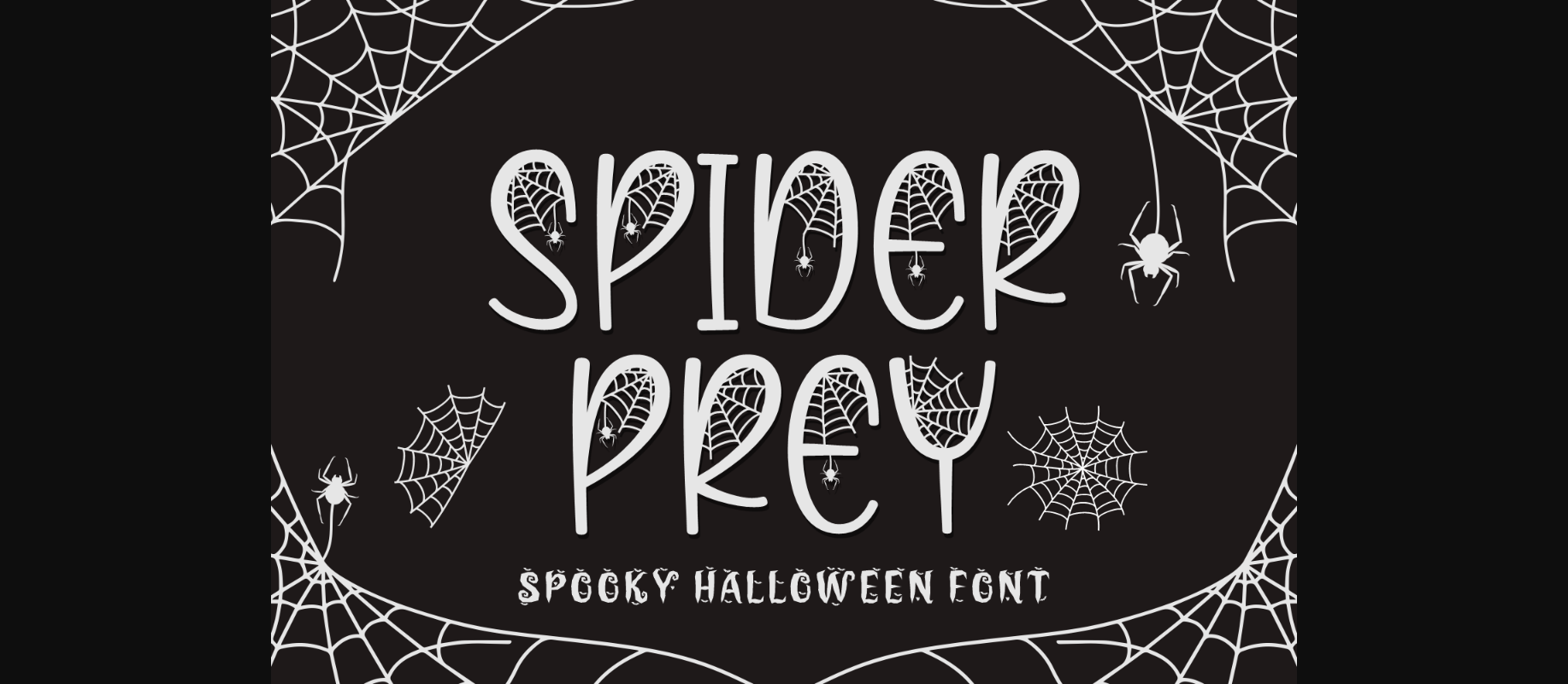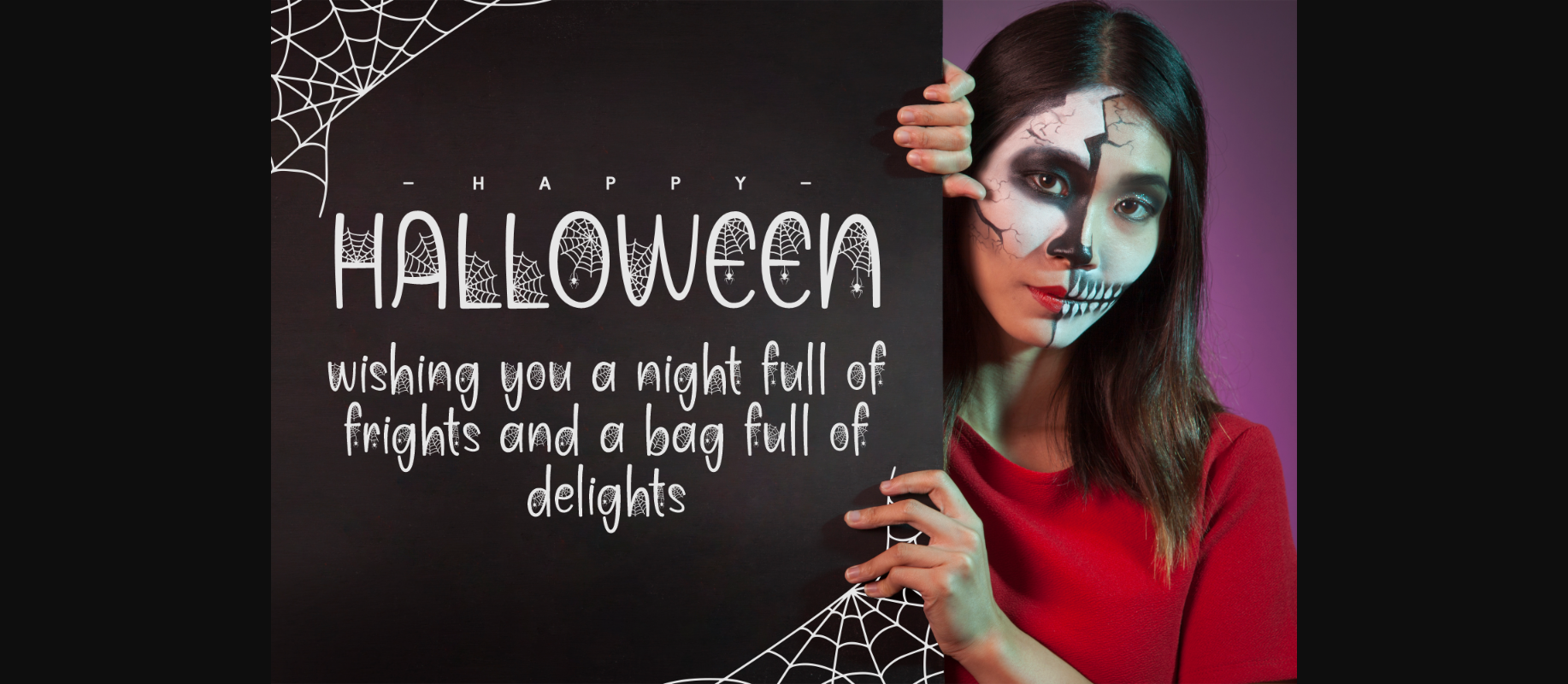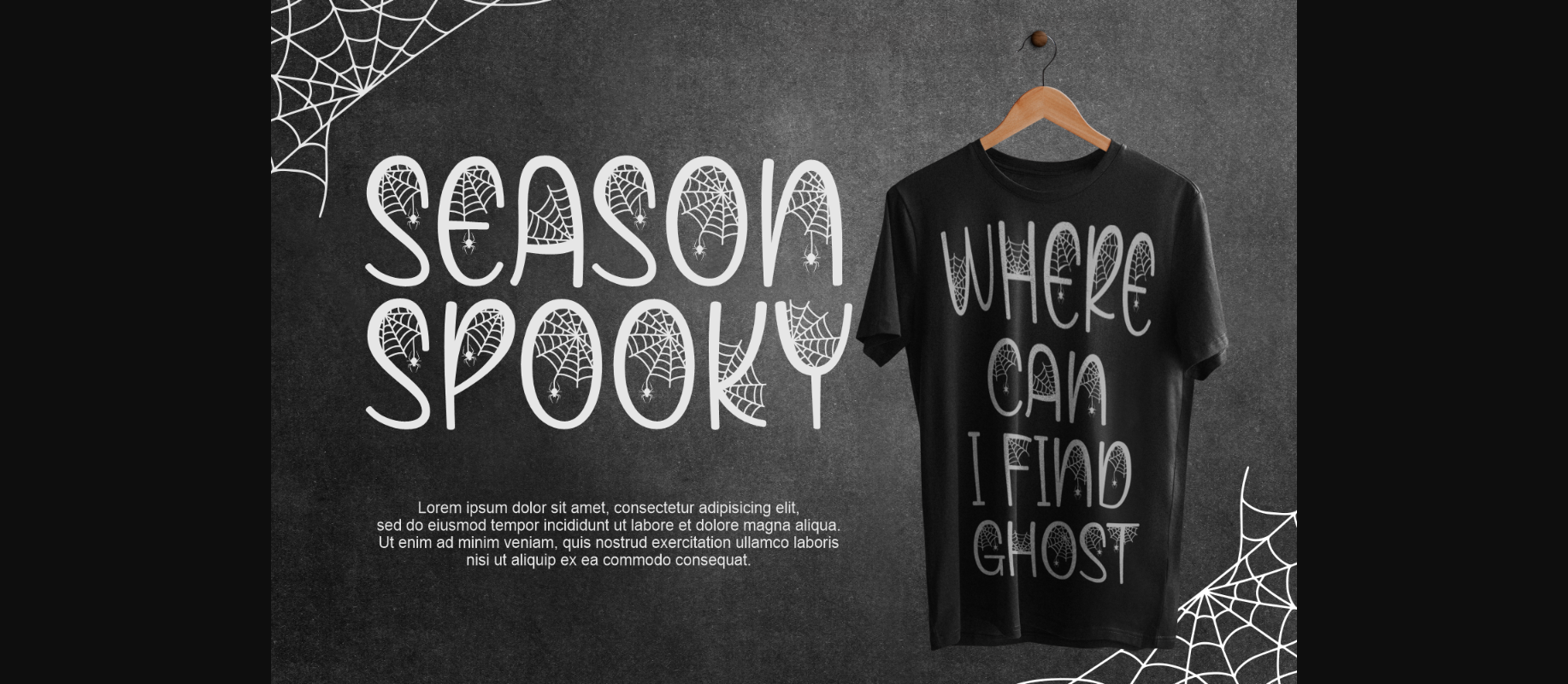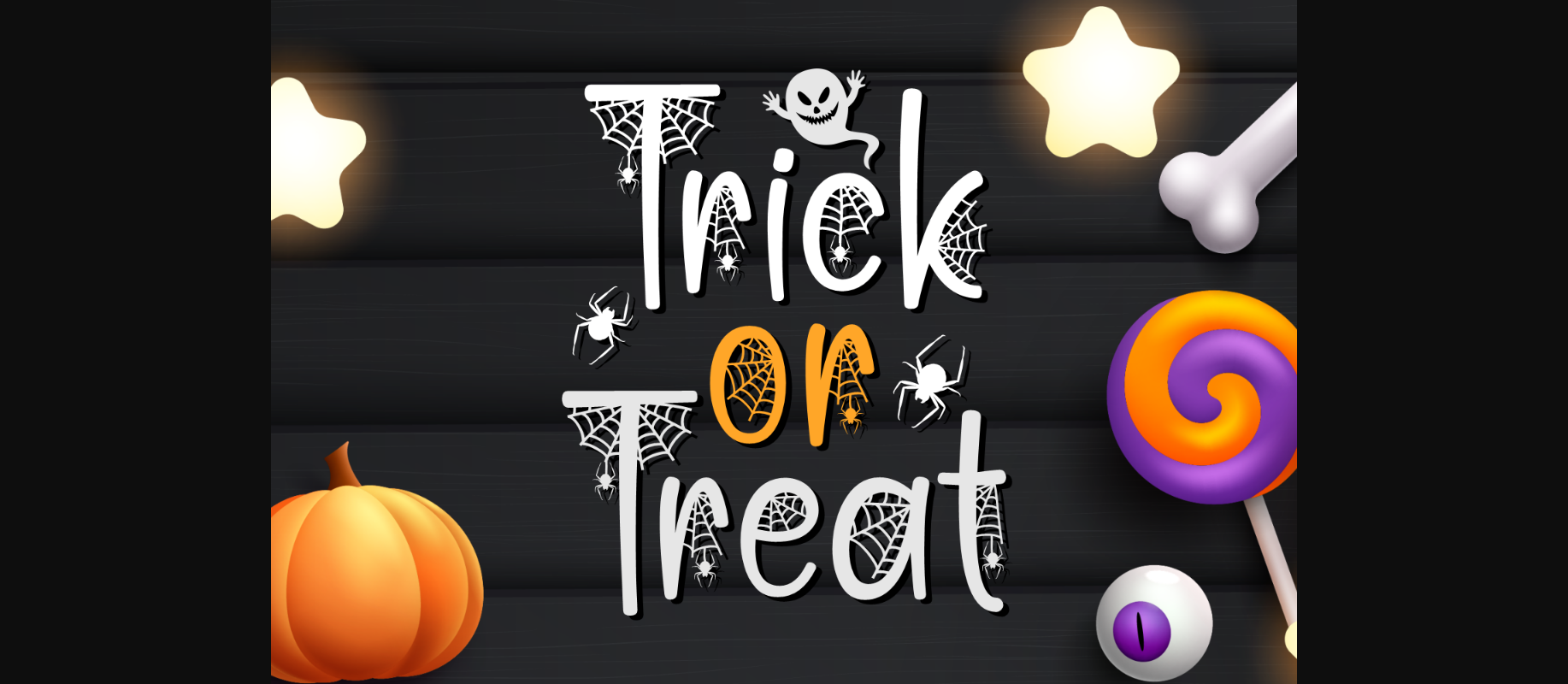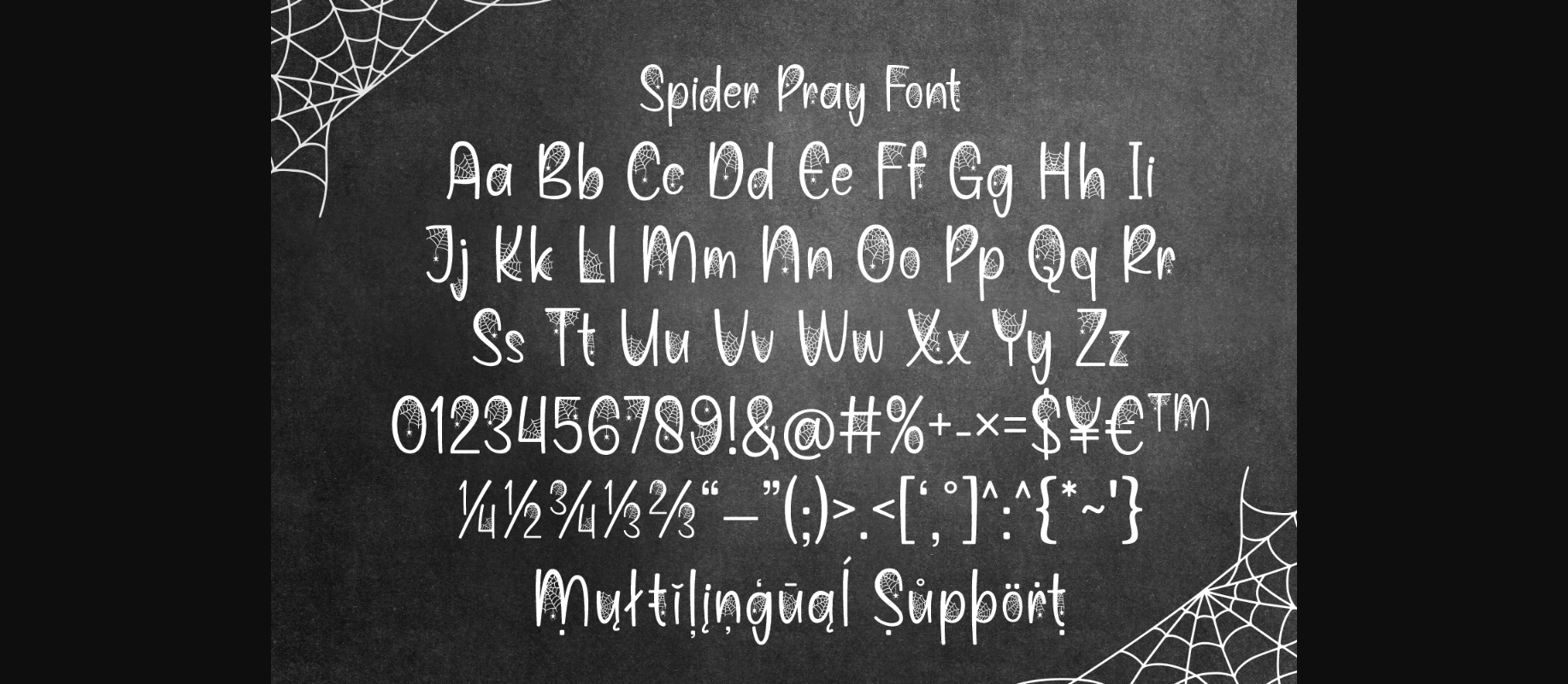
Spider Prey Font
About Spider Prey Font
Spider Prey font is a delightfully spooky and decorative typeface that captures the essence of Halloween. Each letter is adorned with intricate spiderwebs and creepy crawly spiders, creating a perfect blend of fright and festivity. Use Spider Prey to give your Halloween-themed designs, invitations, and posters a spine-tingling touch that will have everyone caught in its web of charm.